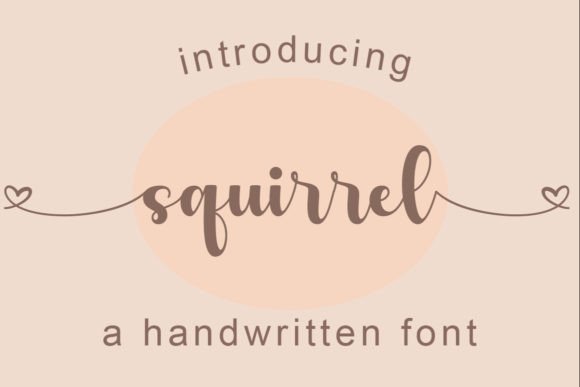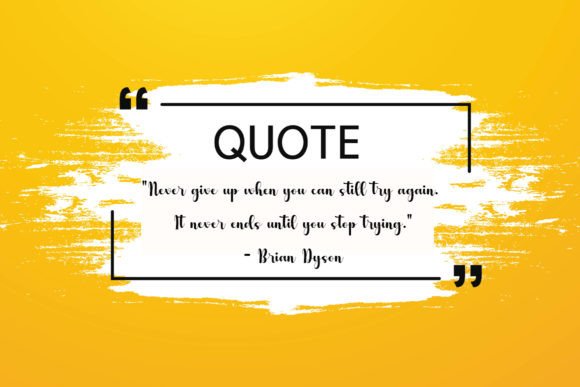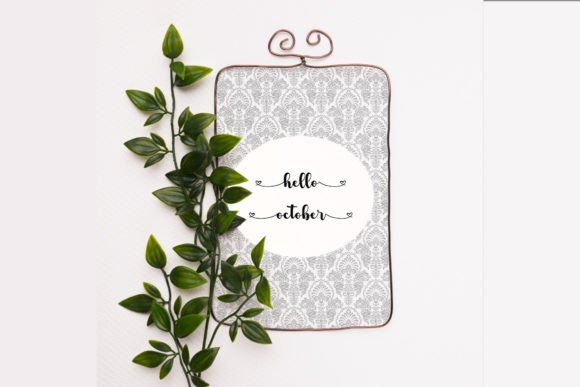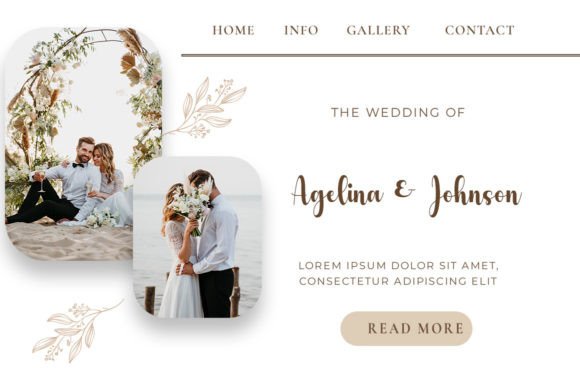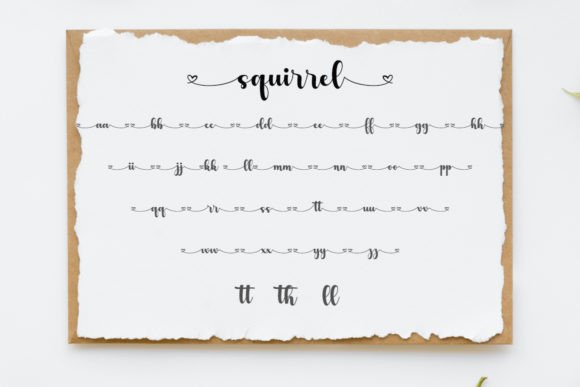
About Squirrel Font
Squirrel is an enchanting script font perfect for logos, branding, quotes, clothing, tote bags, business cards, websites, and many more. Fall in love with it, and let it take your projects to the highest level! This font is PUA encoded, which means you can access all the glyphs and ligatures with ease!